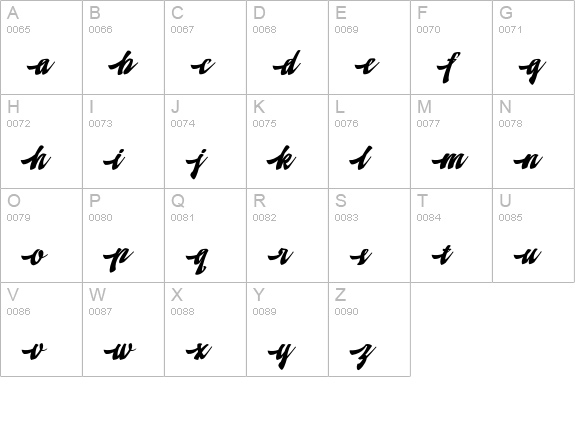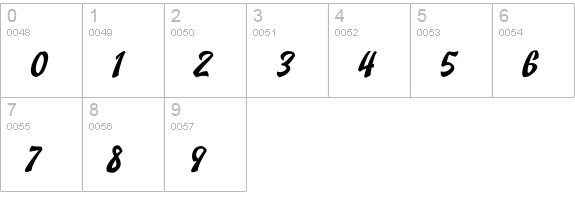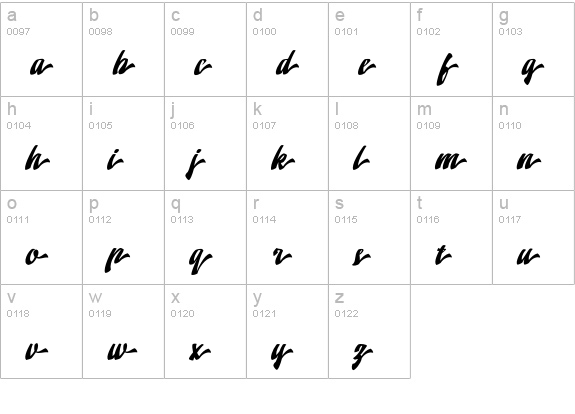
Doedel Alternate 7 Multiple Font Details
Introducing the elegant and versatile Doedel Alternate 7 Multiple font! This unique typeface boasts a modern yet playful design, making it perfect for a wide range of creative projects. With its stylish alternate characters and multiple font styles, Doedel Alternate 7 Multiple offers endless possibilities for creating eye-catching designs. Best of all, Doedel Alternate 7 Multiple is completely free to download at FontsMarket.com! Whether you're working on branding, packaging, invitations, or any other design project, this font is sure to add a touch of sophistication and charm. Don't miss out on this fantastic opportunity to enhance your designs with the stunning Doedel Alternate 7 Multiple font. Download it today and elevate your creative work to new heights!